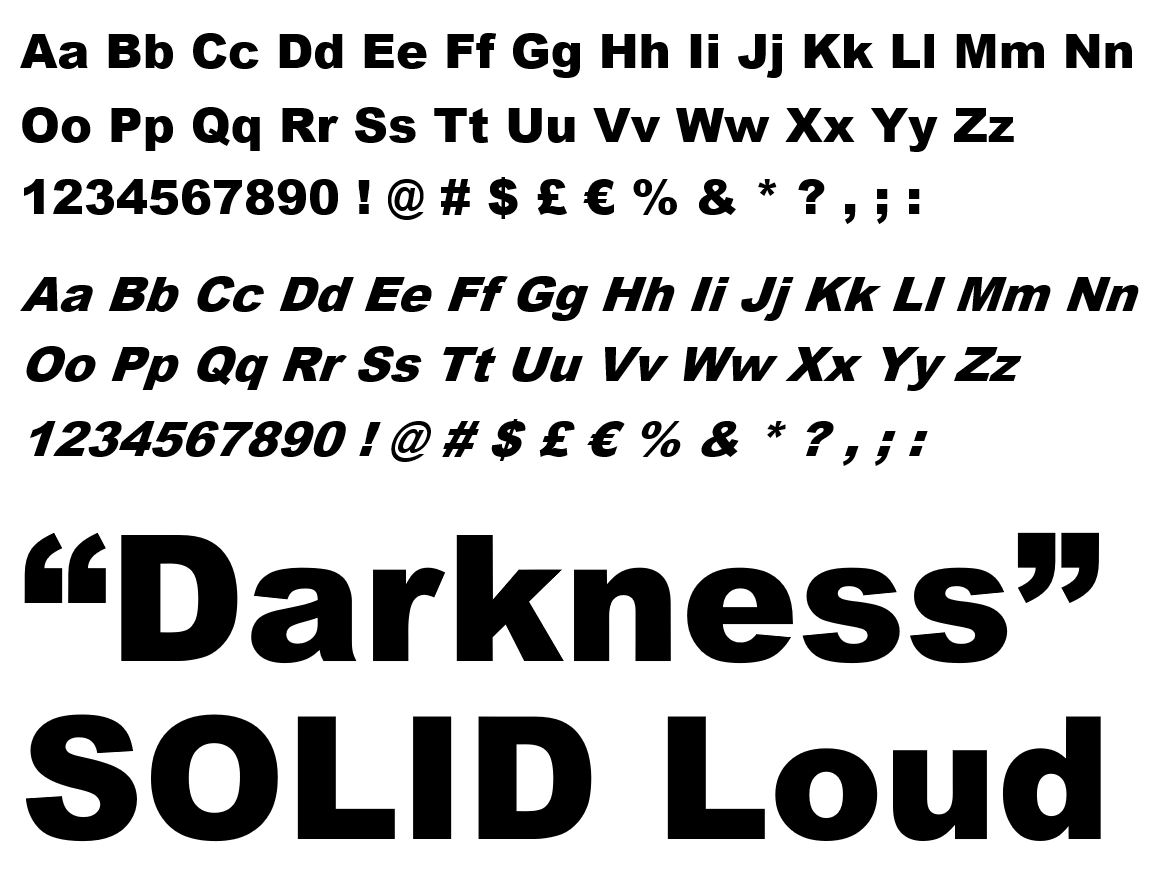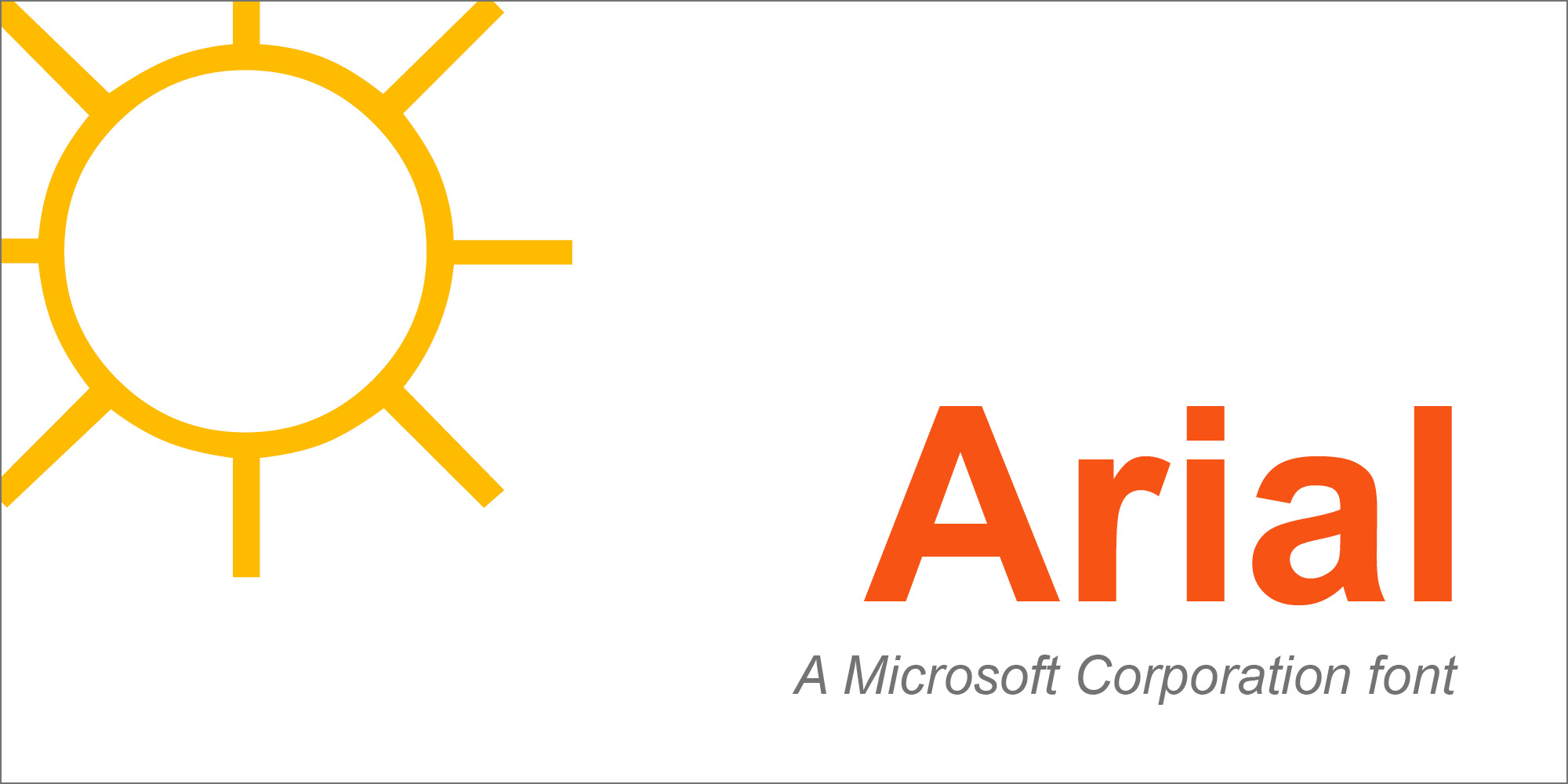
Arial Black is part of the extremely versatile Arial typeface family which can be used with equal success for text setting in reports, presentations, magazines etc, and for display use in newspapers, advertising and promotions. Only the regular weights ships with Windows and supports the larger characters set. The Italic weight has ships with Office applications.
| Designers | Robin Nicholas, Patricia Saunders |
| Font vendor | Agfa Monotype Corporation |